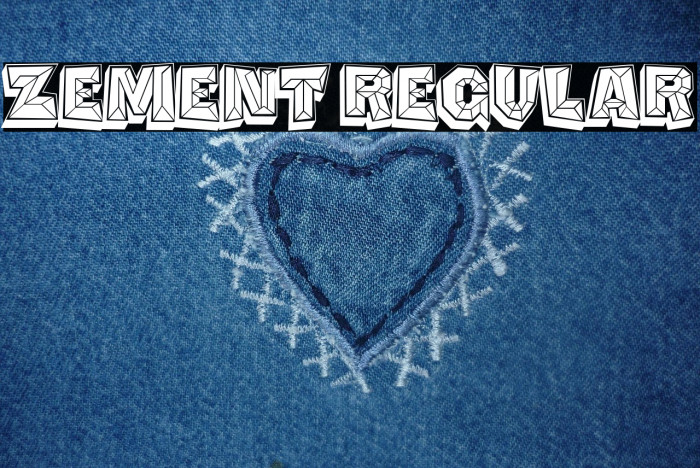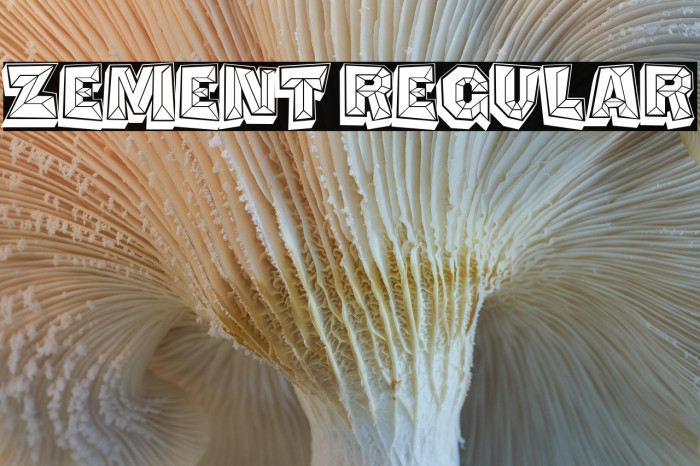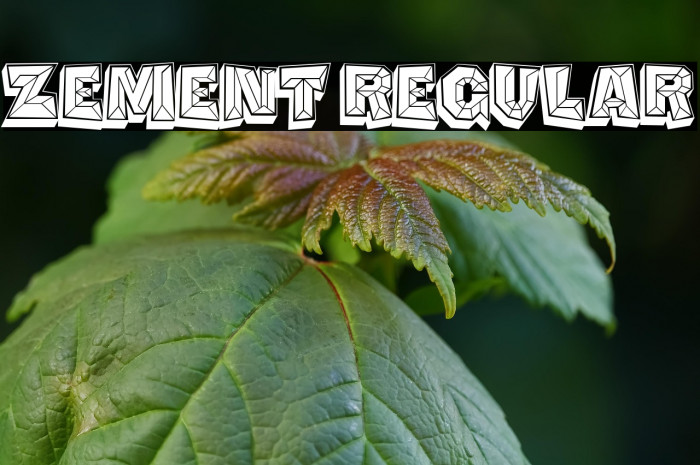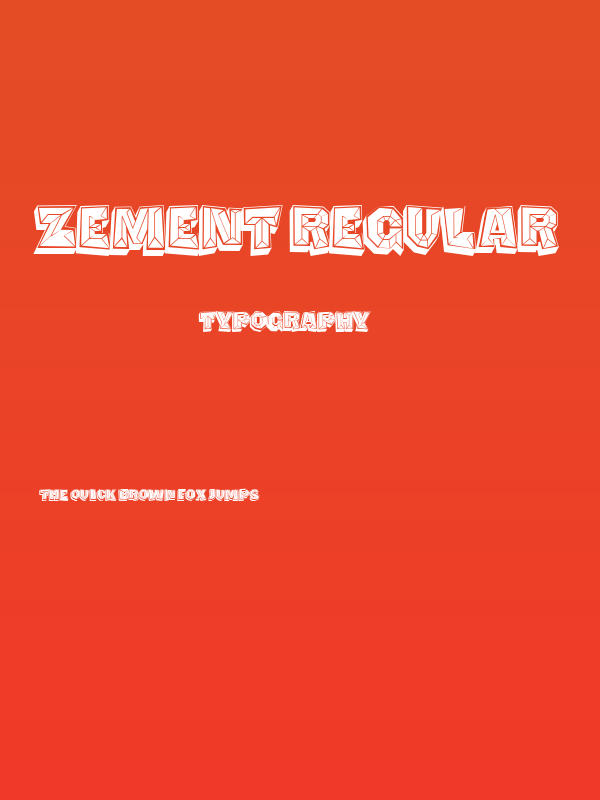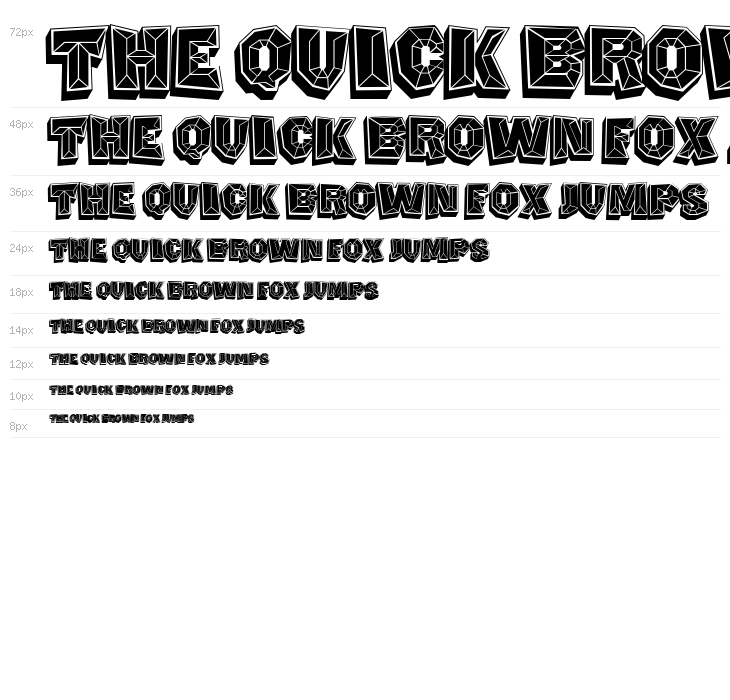
Zement Regular Font
Zement Regular Description
This font features a bold, three-dimensional design with a geometric and angular style. The letters are constructed with sharp edges and a blocky appearance, giving them a strong and impactful presence. The use of shading and outlines creates a sense of depth and volume, making each character stand out prominently. This font is ideal for projects that require a striking and modern look, with its unique structure adding a dynamic and energetic feel. The characters are evenly spaced, ensuring readability while maintaining their bold aesthetic.
| Proposed Projects | Ideal for posters, headlines, logos, and any design requiring a bold, impactful statement. |